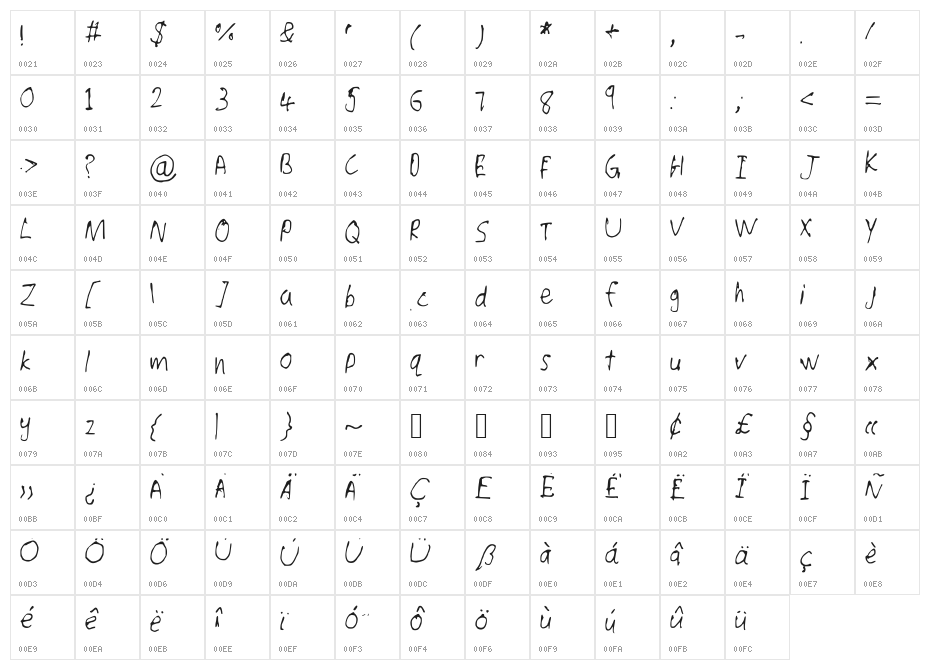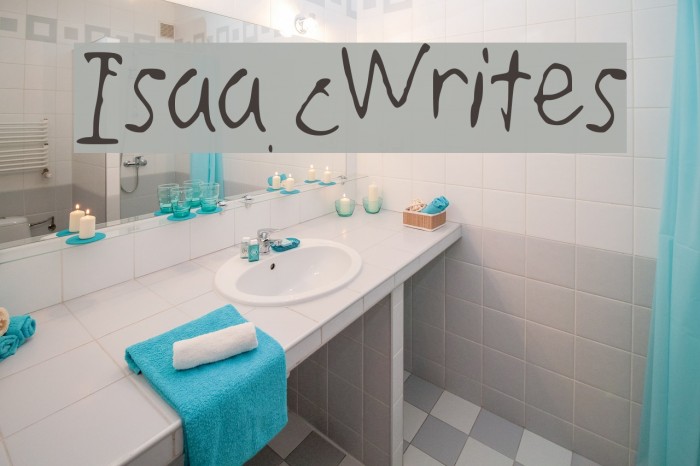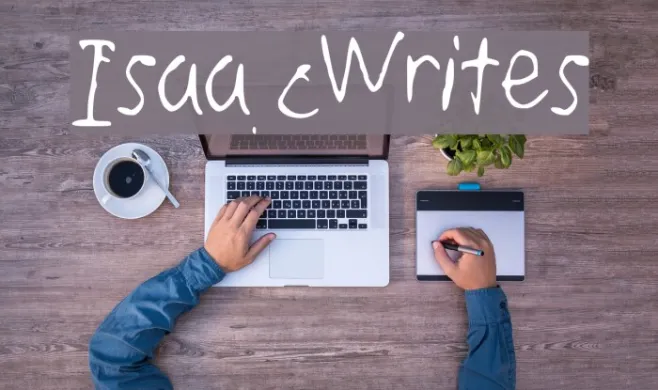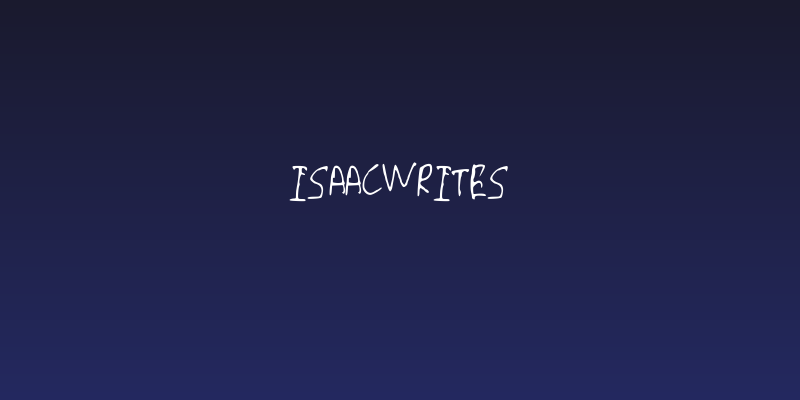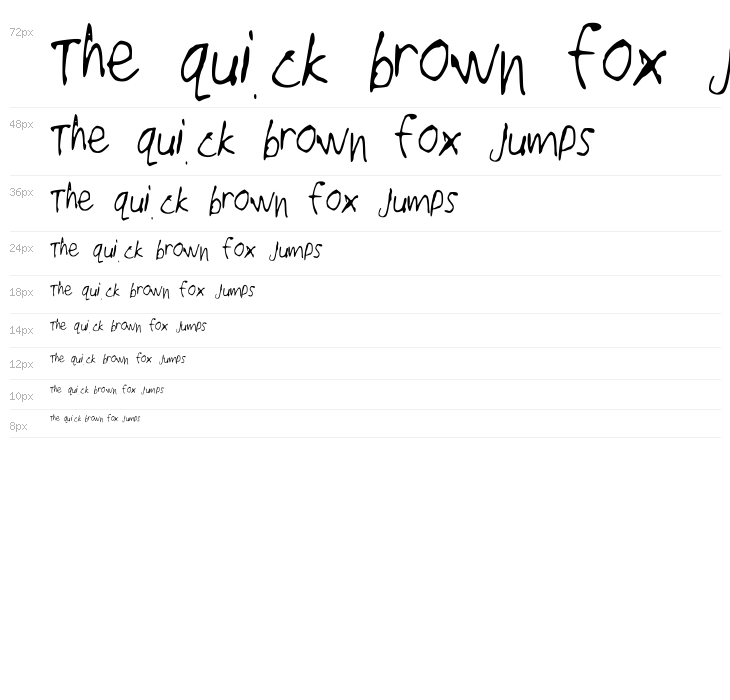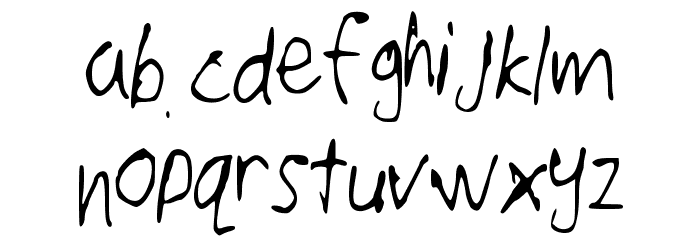
IsaacWrites Font
IsaacWrites Description
This font exudes a casual, handwritten style, characterized by its irregular, playful strokes and a slightly uneven baseline that mimics natural handwriting. The letters are distinct and legible, with a personal touch that adds warmth and approachability. The uppercase letters maintain a consistent height, while the lowercase letters vary slightly, enhancing the informal aesthetic. Numbers and special characters follow the same handwritten theme, ensuring a cohesive look across all characters. This font is perfect for projects that require a personal, human touch, such as greeting cards, personal branding, or informal invitations.